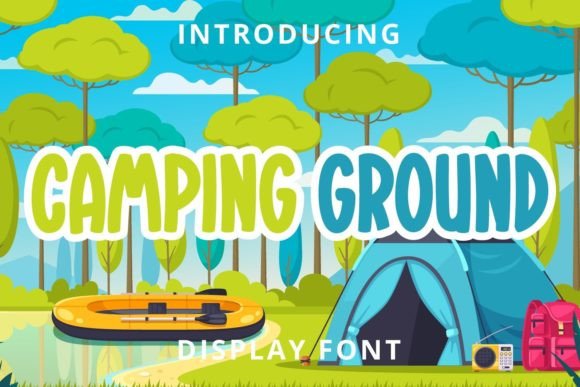
The Joy of Camping Ground Font: A Designer’s New Best Friend
I’ll never forget the time I was working on a children’s party invitation design, and I just couldn’t find the right font to match the playful vibe I was going for. The project was for a friend’s kid’s birthday, and I wanted it to be perfect. That’s when I stumbled upon Camping Ground, a display font that instantly brought a smile to my face. Its brilliant, fun, and cute design made it an instant favorite, and I’ve been hooked ever since!
An Honest Review of Camping Ground
- ✨ Playful and Fun Design: Camping Ground is perfect for designs that need a dash of whimsy and fun. Its unique letterforms are sure to make your project stand out.
- ✅ Versatility: This font is suitable for a wide range of topics, from children’s designs to more general use cases where a playful touch is desired.
- 💕 Easy to Read: Despite its playful design, Camping Ground remains easy to read, making it a great choice for headlines and titles.
While Camping Ground is an amazing font, there are a few things to keep in mind:
- 🤔 Legibility at Small Sizes: Like many display fonts, Camping Ground may lose legibility when used at very small sizes. It’s best used for headlines and titles.
- ⚠️ Overuse: Because of its playful nature, it’s easy to overuse Camping Ground. Balance is key to making your design effective.
Camping Ground supports OpenType features, which can add an extra layer of creativity to your designs. Here are some tips:
- Stylistic Alternates: Look for alternative letterforms that can add variety to your text.
- Glyphs: Many fonts, including Camping Ground, come with additional glyphs that can be used to add decorative elements to your design.
The Backstory of Camping Ground
Camping Ground was designed with the intention of capturing the joy and freedom of the great outdoors. Its creator wanted a font that would evoke feelings of adventure and playfulness, perfect for designs aimed at children or anyone looking for a fun, lighthearted vibe.
Q: Is Camping Ground suitable for body text?
A: While Camping Ground is primarily designed as a display font, it’s best used for headlines and titles due to its playful design and potential legibility issues at smaller sizes.
Q: Can I combine Camping Ground with other fonts?
A: Absolutely! Combining Camping Ground with a more straightforward font can create visual interest and hierarchy in your designs. Just be sure to balance the fonts to ensure readability and aesthetic appeal.